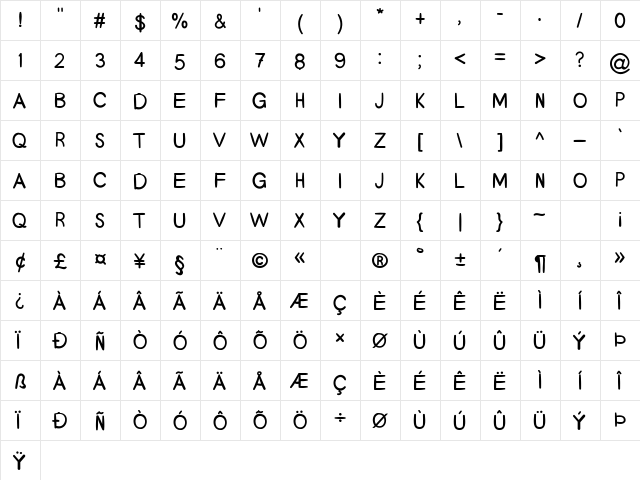
Geralita Regular
| Foundry | F. Aristaputra |
| Designer | F. Aristaputra |
Design Context for Geralita Typeface
Geralita offers clean, dependable letterforms without strong stylistic allegiance, making it a practical choice for designers who need flexibility.
Pro Tip: Pair Geralita with a font of contrasting weight or personality to build a more expressive typographic hierarchy.